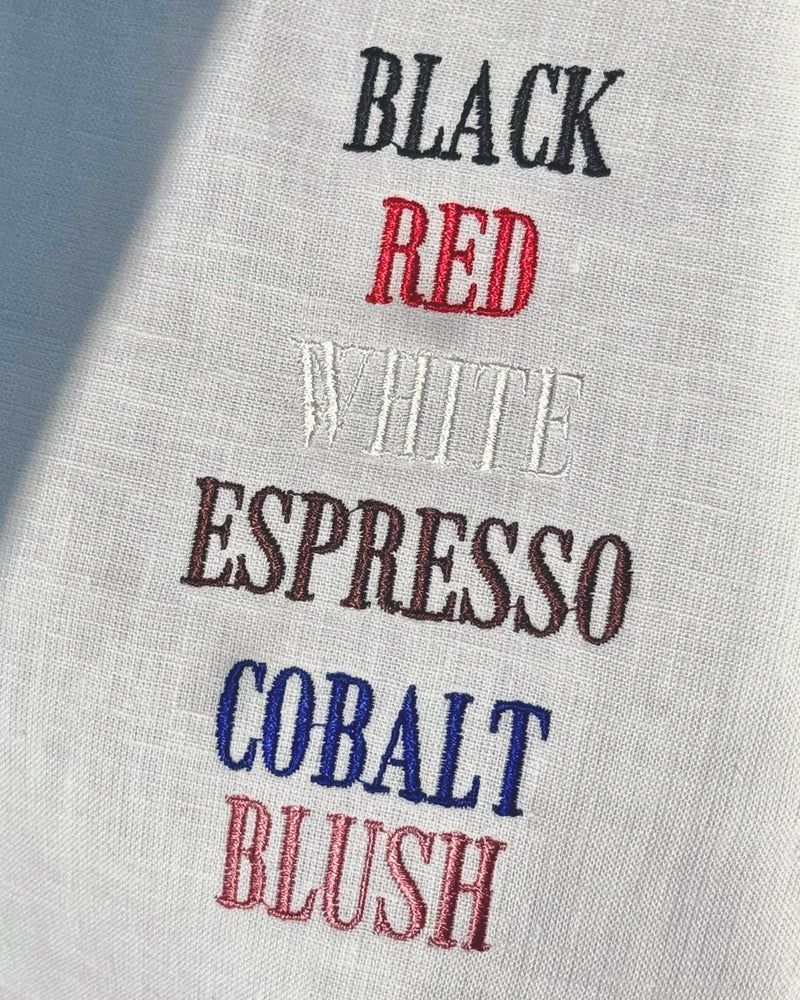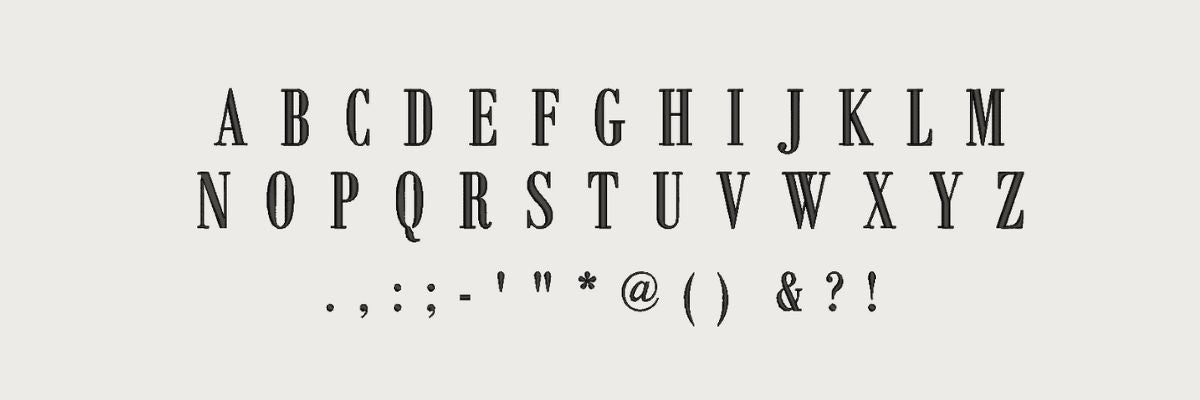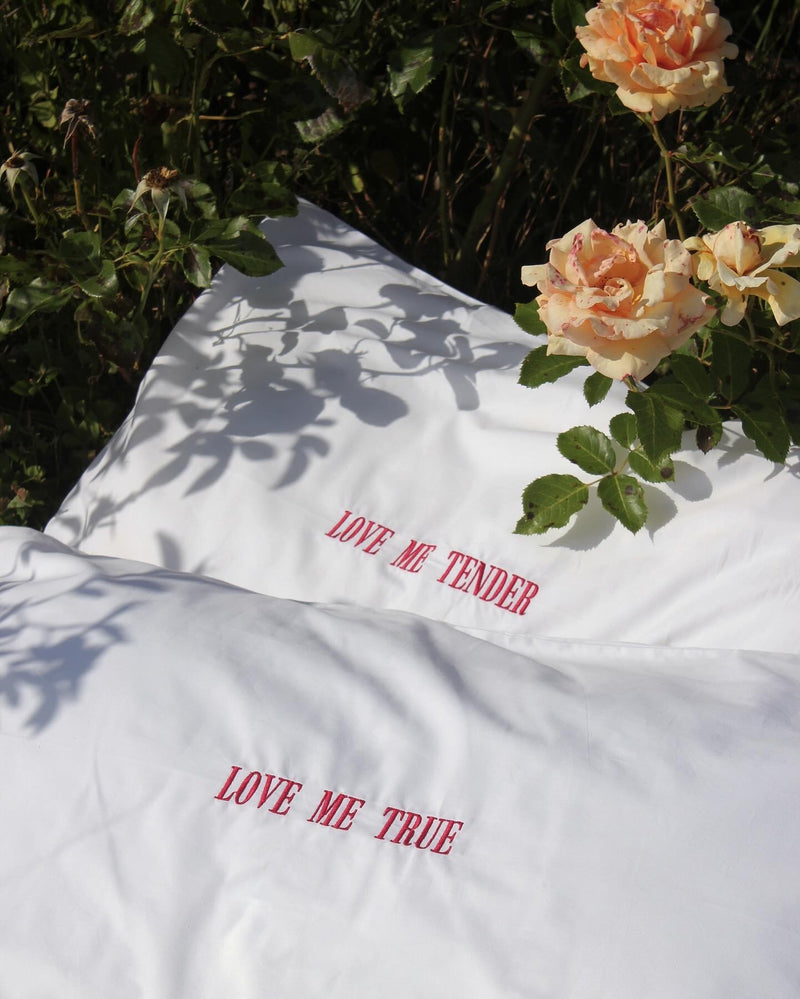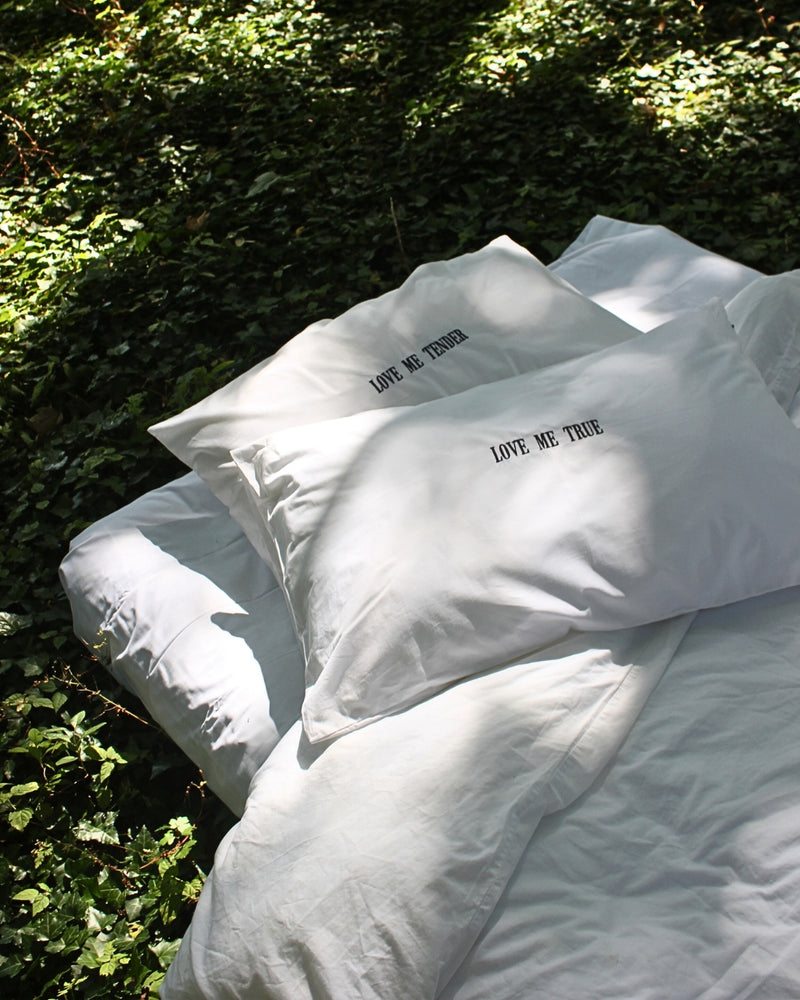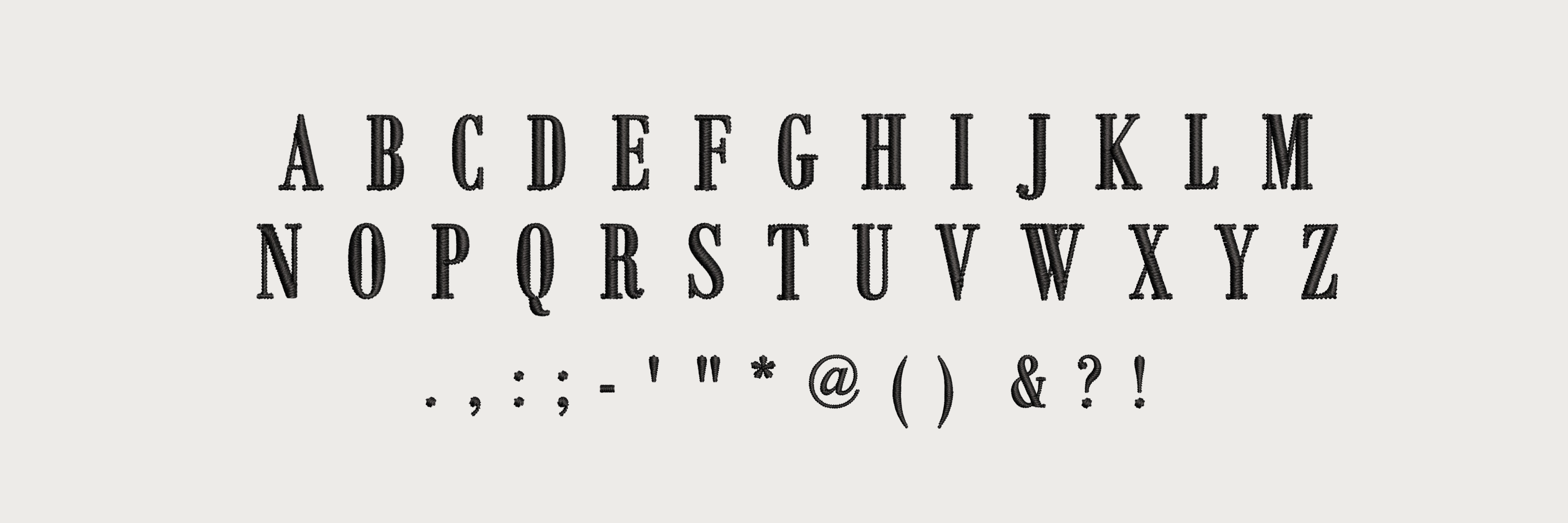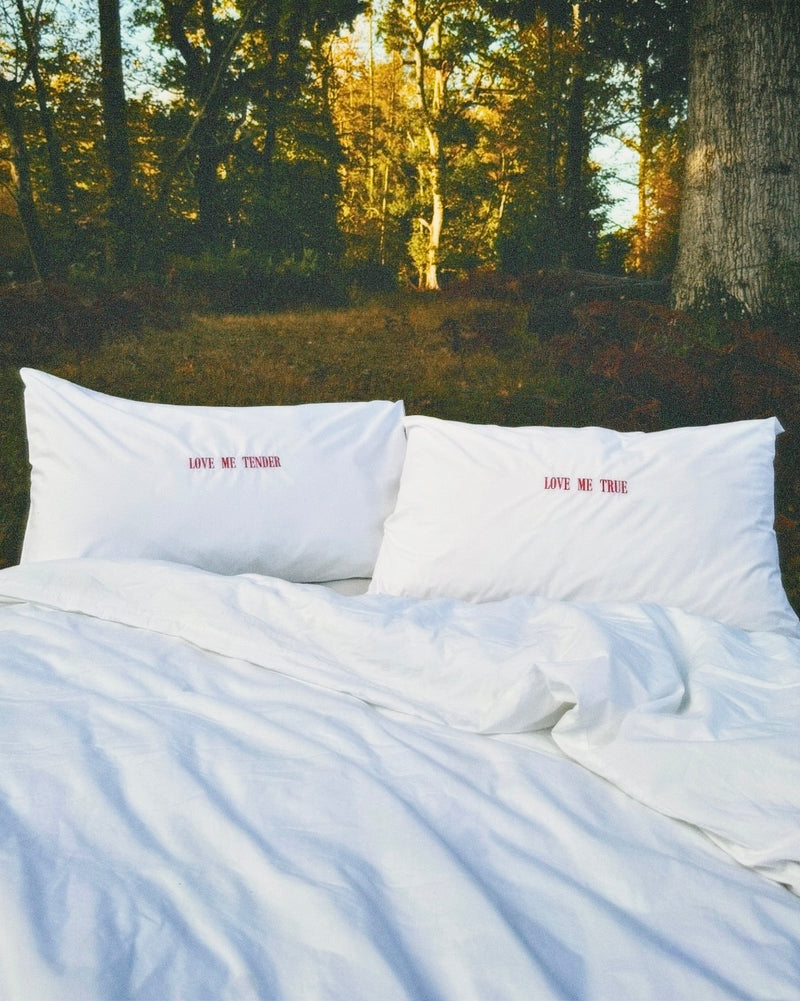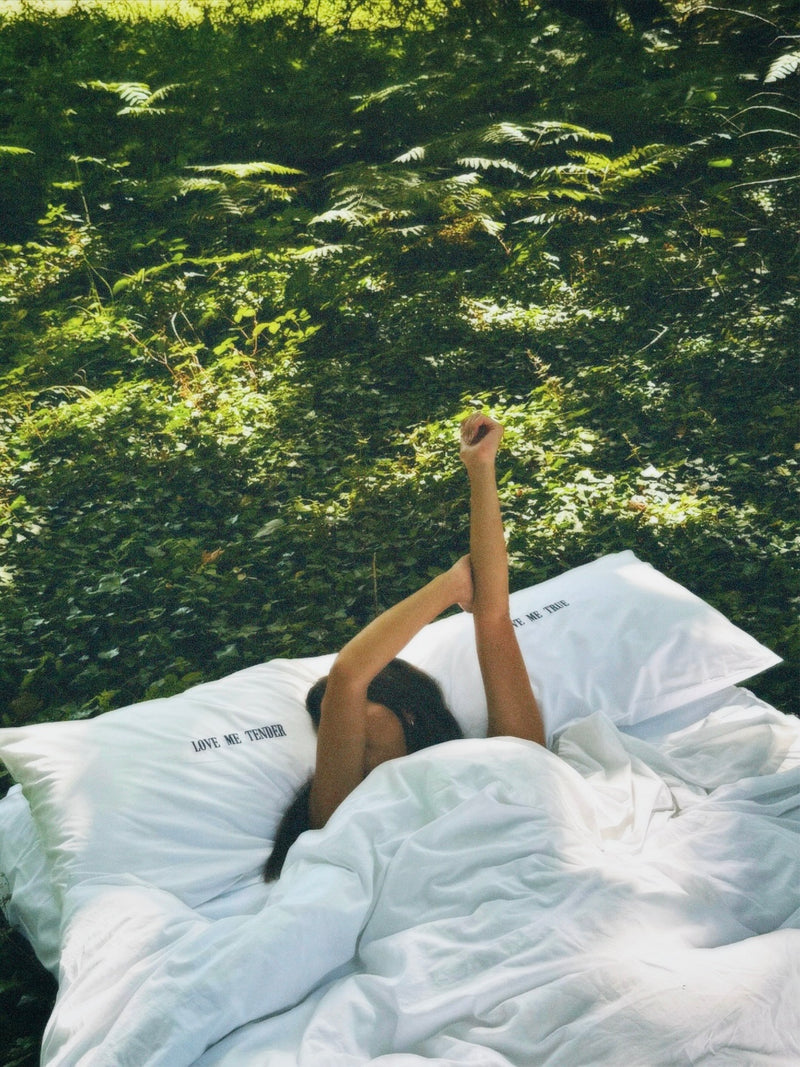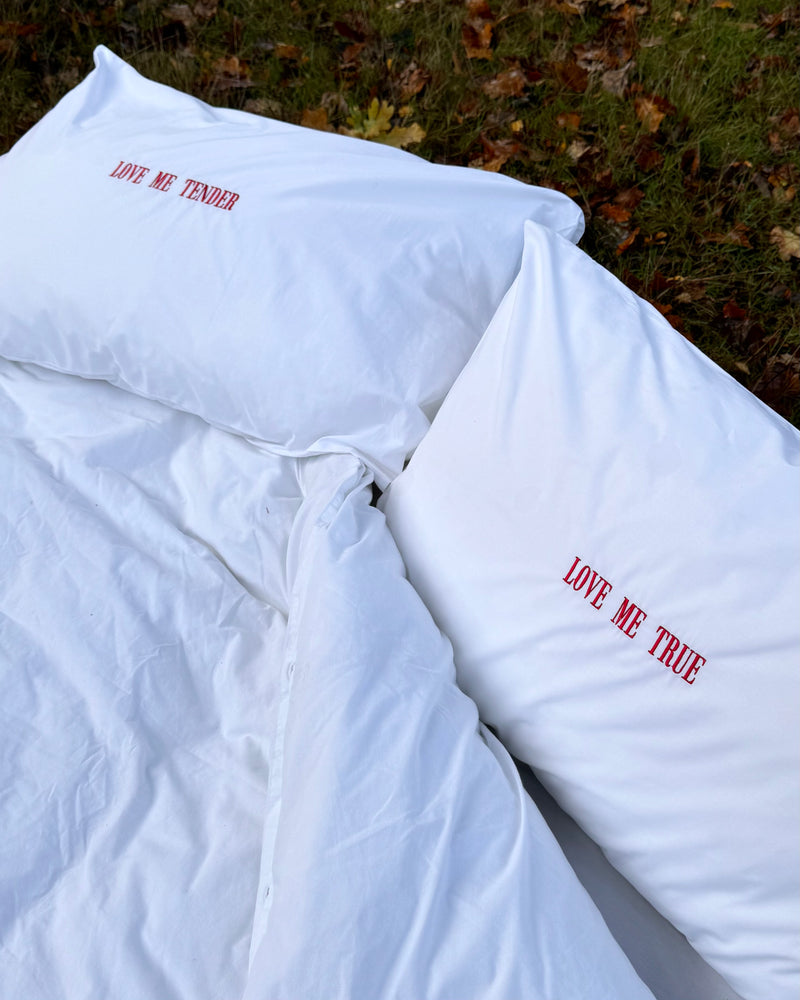
The Prue Font
Our custom embroidery font Prue is a traditional font that is inspired by vintage newspapers. Browse the full offering of this font below to help you to envision your custom embroidery piece.
Available in upper case only.